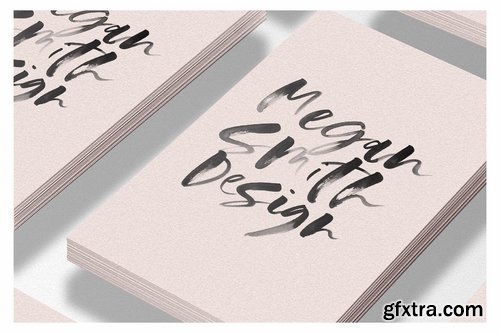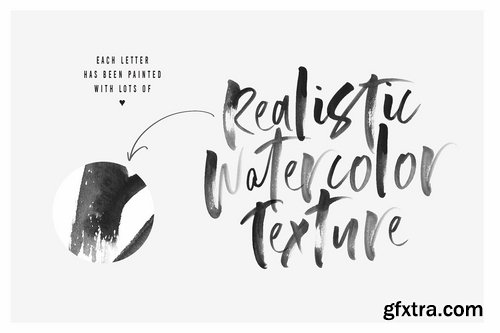
Say hello to "Aloha Babe" - a new SVG font that I'm absolutely in love with! Its realistic hand-lettered watercolor look makes it the perfect fit for signature logos, printed quotes, wedding invitation cards, social media headers, product packaging and a lot more!
Each letter has been written with a brush and watercolour and lots of ? many times :)
The OpenSVG technology is just amazing because it allows us to have so much more detail & transparency in the letters, which can give your text a realistic hand-painted look.